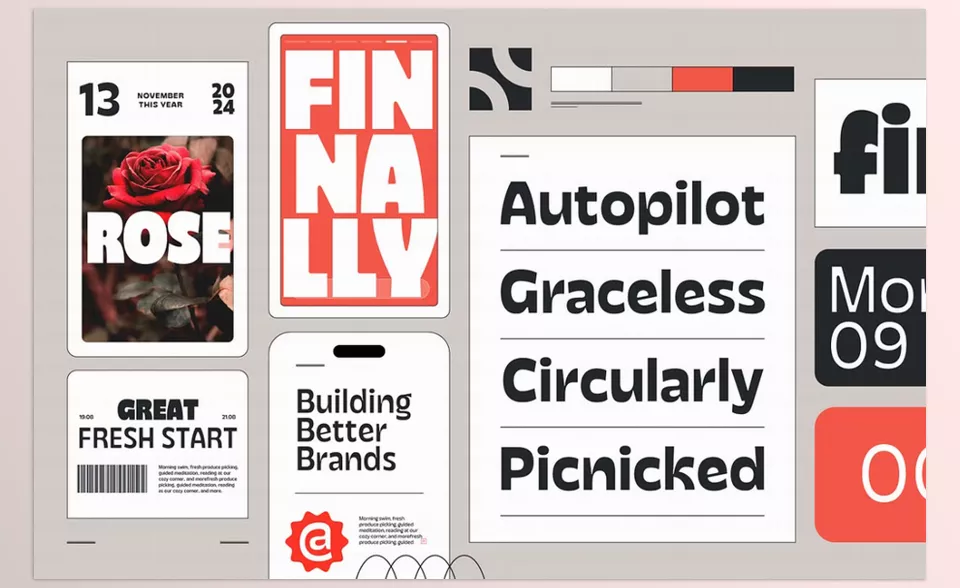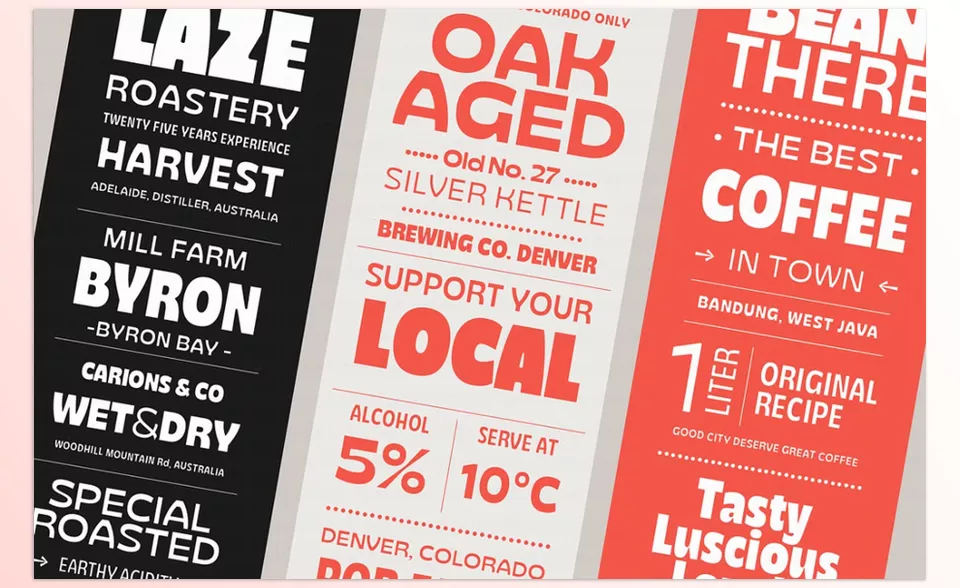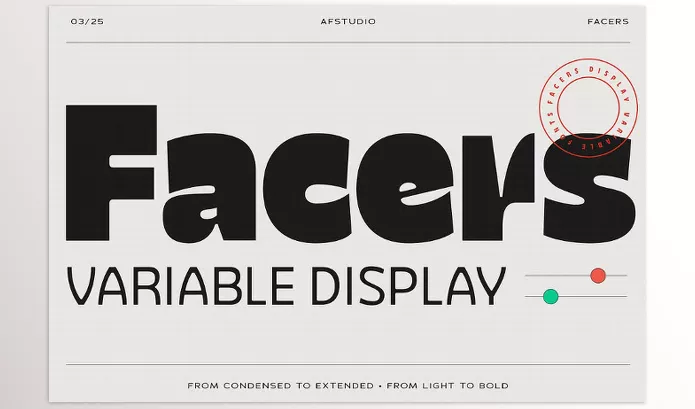
The Creative Market – Facers Font Family is specifically crafted to make your designs pop like never before through its expressive and rich display typeface. This font family adds a touch of modernity to vintage appeal and is perfect for branding, digital content, or editorial layouts.
Adam Fathony – Facers Font Family Features
- Flexible Options: Incorporates 25 styles over 5 widths and 5 weights, ranging from Light Extended to Bold Condensed.
- Customizable Design: Precision-crafted characters where weight and width can each be adjusted independently, offering full control over the end product.
- Attention-Grabbing Display: Striking font suitable for captivating headlines and posters.
- Retro-Modern Fusion: Marries classic display-type fonts with fresh, contemporary design sensibilities.
- Branding & Editorial Excellence: Caters to multiple sectors, including fashion, technology, culture, and many more.
- Unusual Ligatures & Alternates: Offer diverse, playful features to personalize typography.
Image 1: Propelling grain and sensibility towards typeset art with titles exploration untamed by boundary.
Image 2: Delivering emotion and attraction with a font that connects easily.